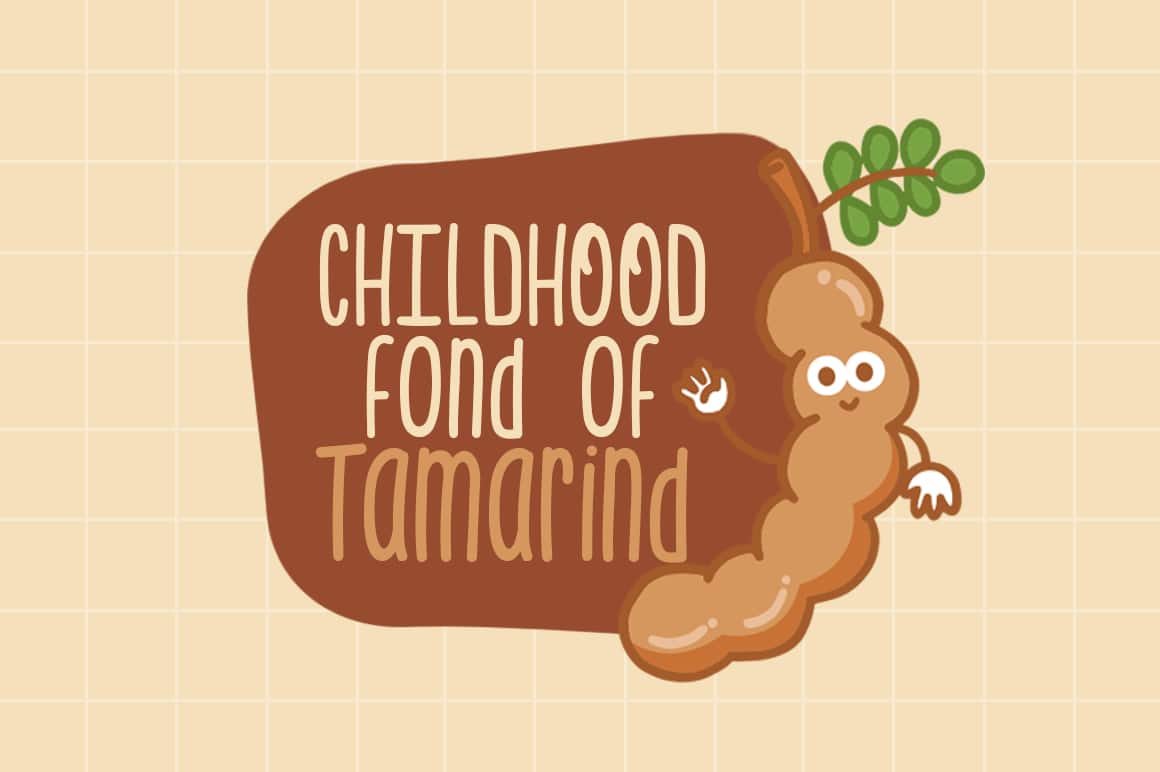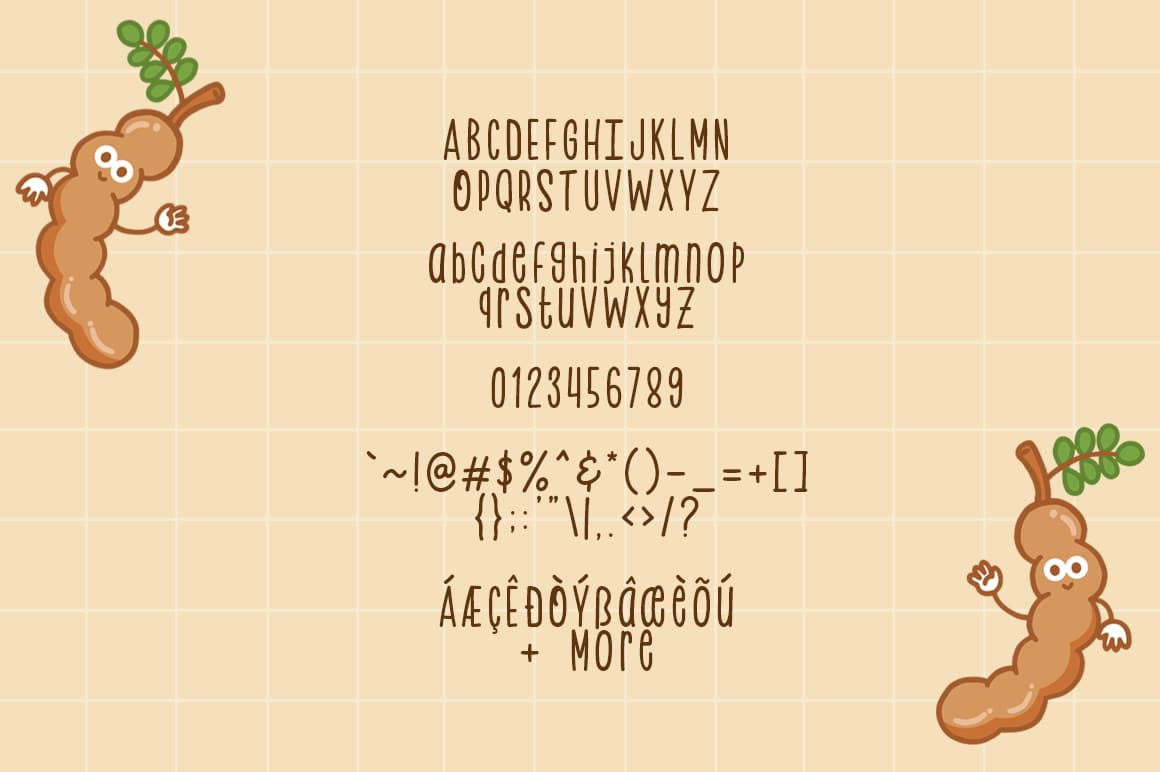
Tamarind Days Font
Tamarind Days is a fun and cool display font. Whether you use it for cartoon-related designs, children’s games, or just any creation that requires a playful touch, this font is the perfect choice for your designs!